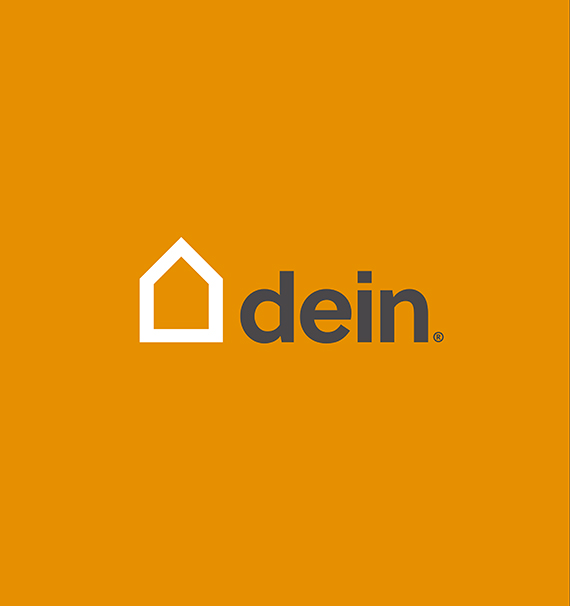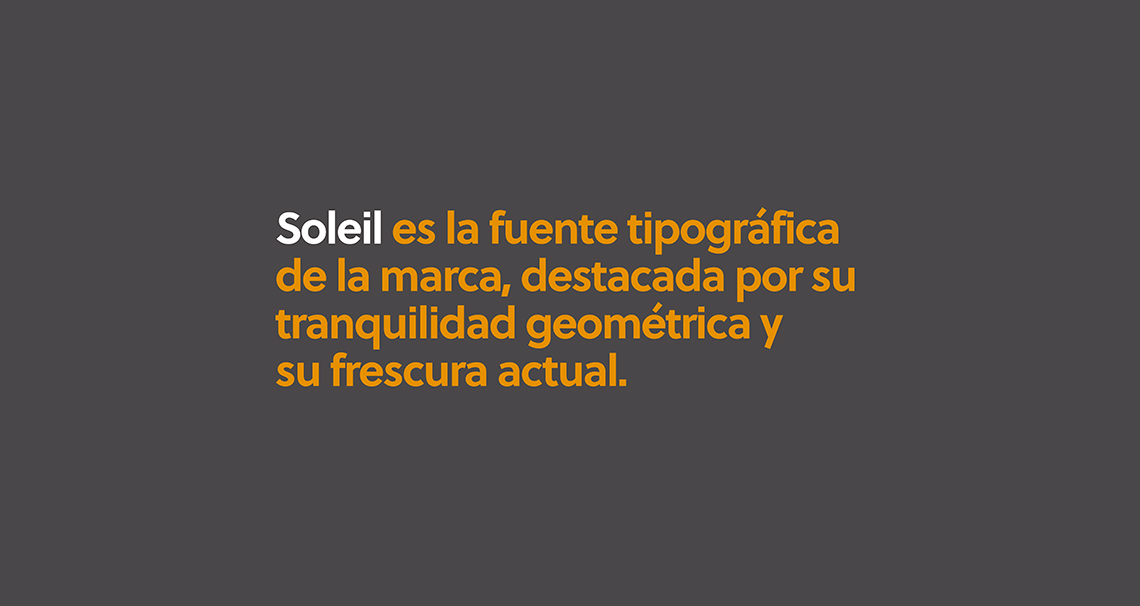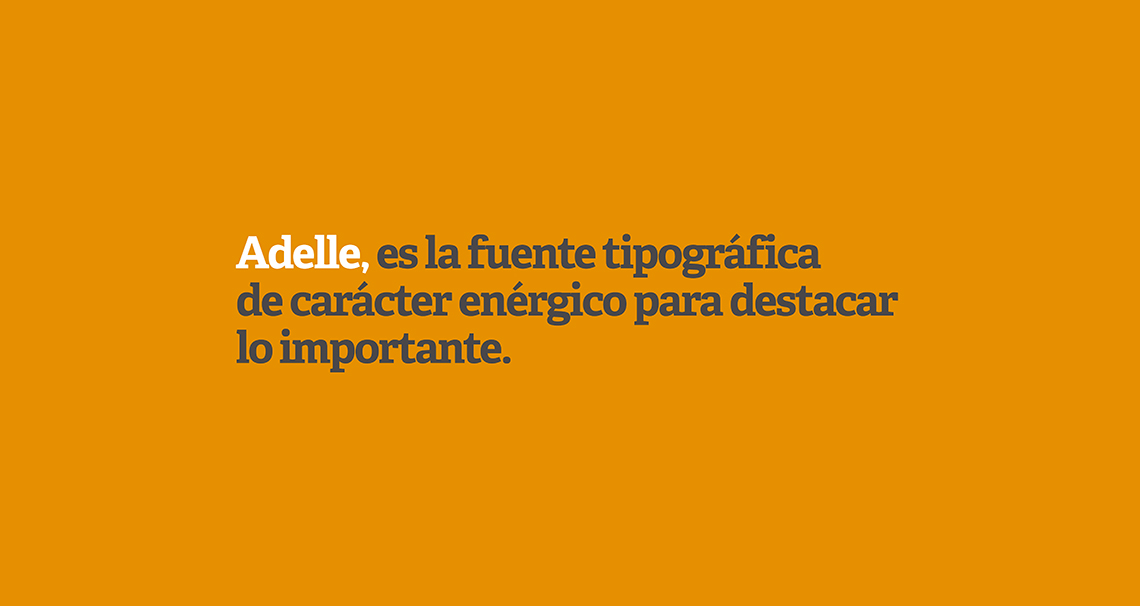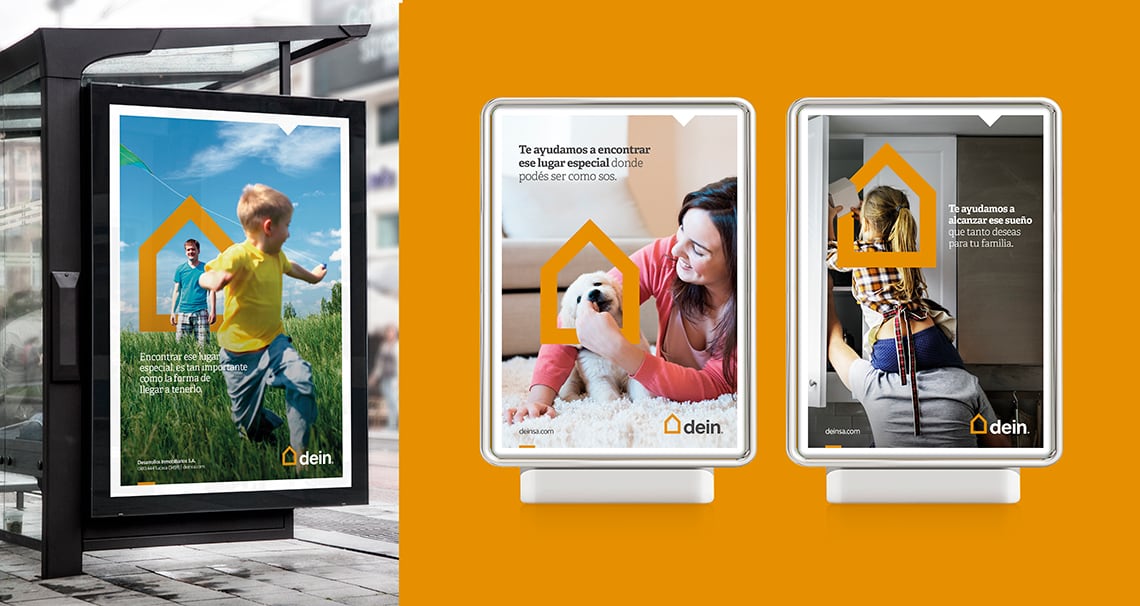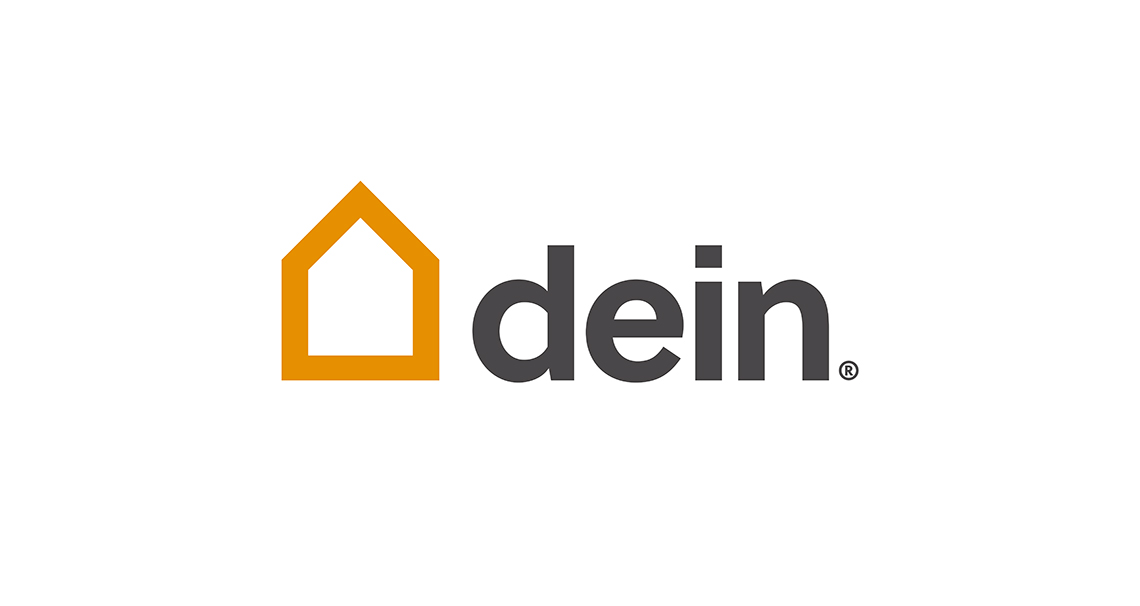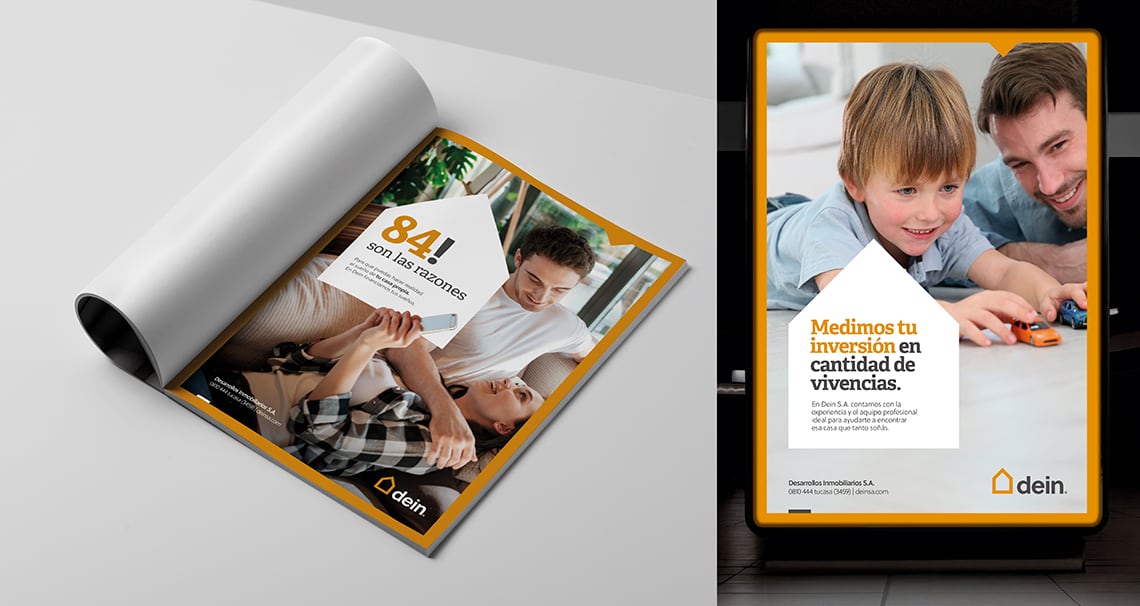
dein
Soleil and Adelle are used widely in recently created brand ‘dein’ representing a real estate service, merging marketing with financial tools for a broad socioeconomic range.
Dein is a new brand that will be incorporated into the portfolio of a group of companies dedicated to real estate development, the “Desarrollos Inmobiliarios S.A.” Next to the iconic symbol representing a house, the Argentinian Tuco brand agency chose Wolfgang Homola’s Soleil font for the logotype itself and combined it with the Adelle font family, by Veronika Burian and José Scaglione, for all communication and branding material.
Soleil stands out for its geometric tranquility and its current freshness. Likewise, its modernist lines of essential forms achieve a balanced and subtle coexistence with the rectilinear qualities of the graphic symbol element. Adelle complements Soleil nicely by nodding to the mark in the Egyptian quadrangular base (slab) of Adelle’s letterforms. Its energetic character, evident especially in subtitles and headlines, and its multipurpose quality of friendly personality, wide flexibility, and its balance in terms of color contrasts, make it the ideal option to communicate all the values that the brand intends to convey.